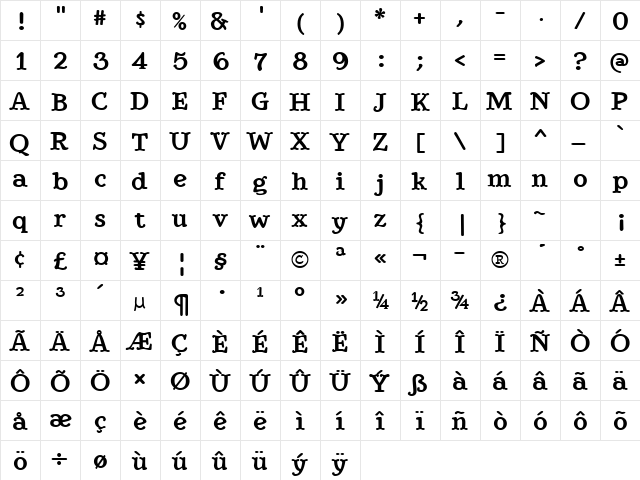
BetterIngriana Bold
Design Context for BetterIngriana Typeface
BetterIngriana offers clean, dependable letterforms without strong stylistic allegiance, making it a practical choice for designers who need flexibility. Its bold stroke weight gives it real presence on the page.